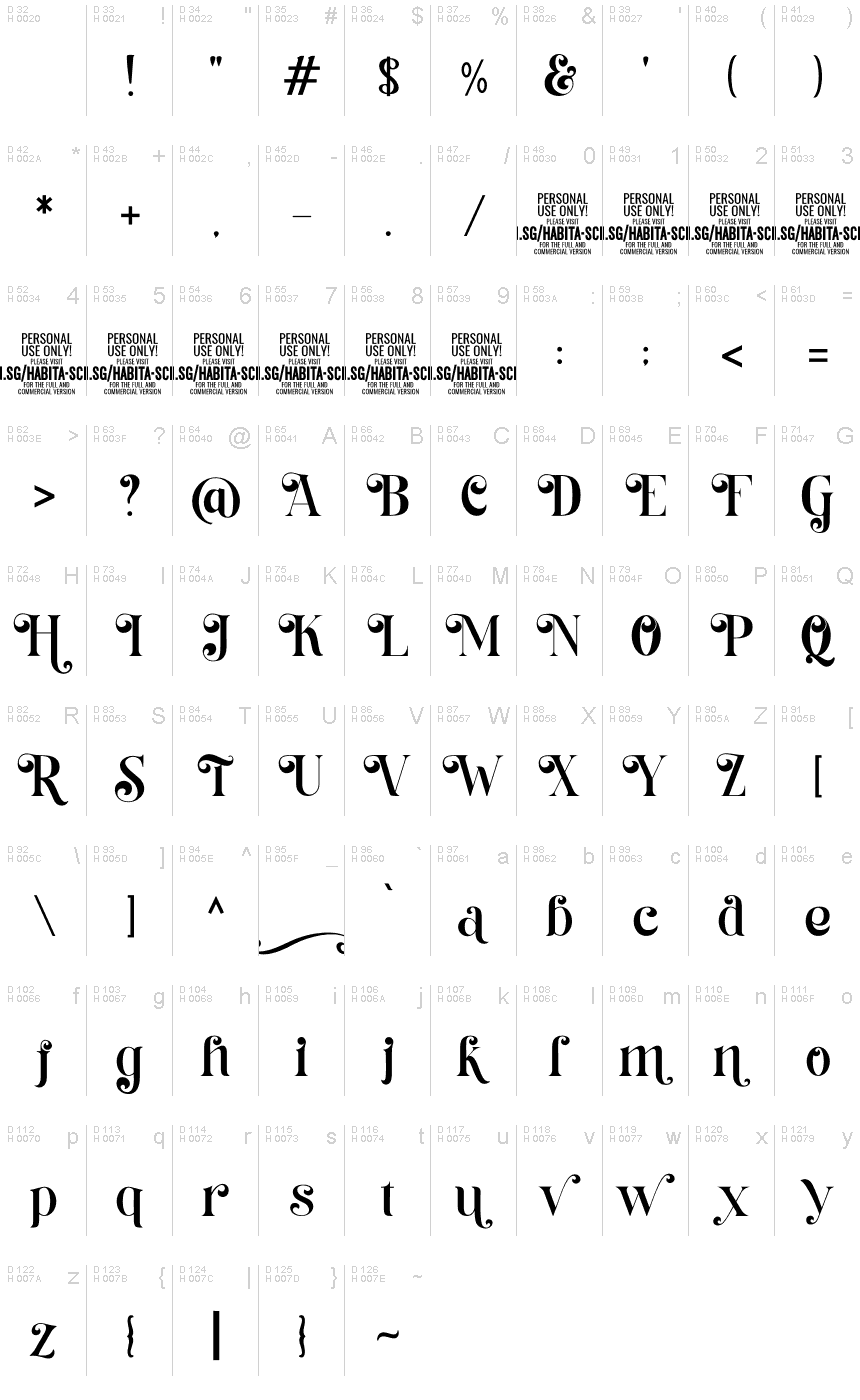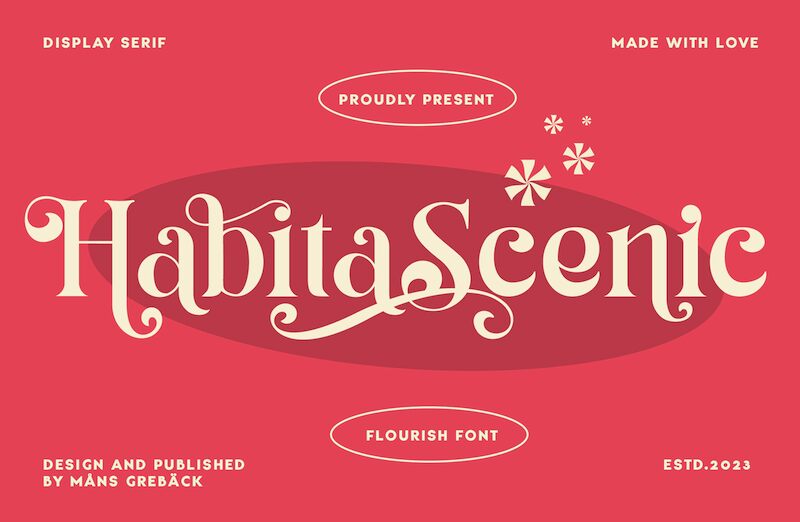
Habita Scenic PERSONAL USE Regular
Habita Scenic, designed by Mans Greback, is a charming and elegant curly vintage serif font that will add a touch of nostalgia to any project. With its semi-bold weight, it's perfect for titles, headlines, and logos that require a little extra oomph. This font is versatile and can be used in various projects such as wedding invitations, product packaging designs, event posters as well as branding projects for food and beverage businesses. Habita Scenic is sure to make your design stand out with its unique personality and timeless appeal.
Use underscore _ anywhere to make a swash.
Example: Love_Passion